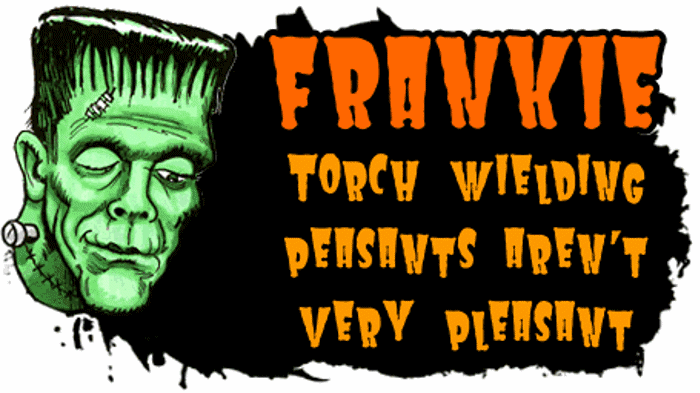
Frankie Font
Mmmm! Hnnngg! HHHNNNNGG!!! A quick-and-dirty creation that came to life from the remains of something else I was working on, and seemed evocative of another monster...
If you want all your text aligned to the same baseline, use all caps. If you want something wackier, try the lower case characters; they're roughly 85% smaller than the upper case letters, and set at arbitrary distances from the baseline. Use it for Halloween flyers, or letters to the mother-in-law. Enjoy!